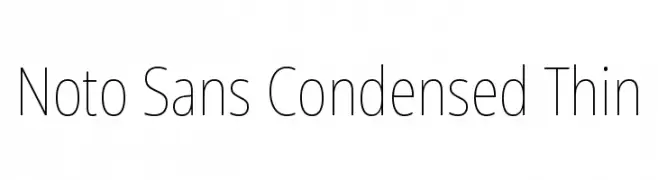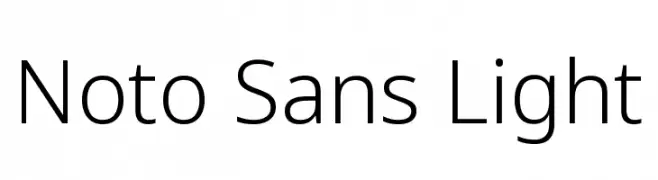
( Fonts by Google )
A clean, modern sans-serif font with light weight and excellent readability.
( Fonts by Google )
A modern, thin, and condensed sans-serif font with excellent legibility.